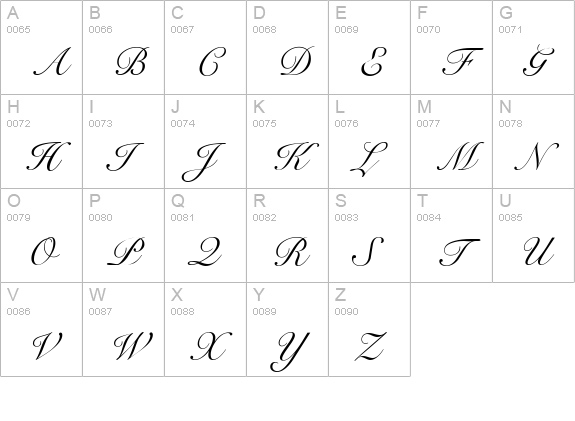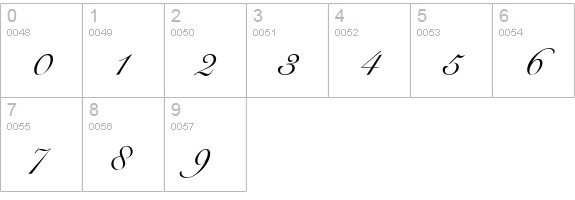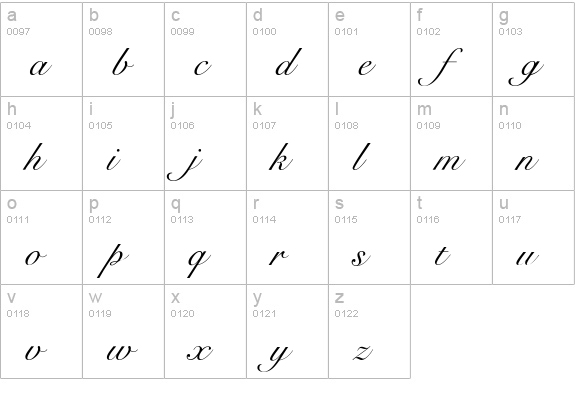
R791-Script-Regular Font Details
R791-Script-Regular is the standard, neutral variant in the R791 typeface family \xE2\x80\x94 well suited to general body text, paragraphs, and standard typographic work.
R791-Script-Regular is a stylish and elegant font that exudes sophistication and charm. With its graceful curves and flowing lines, this font is perfect for adding a touch of class to any design project. Whether you are creating wedding invitations, branding materials, or social media graphics, R791-Script-Regular will elevate your work to the next level. The best part about R791-Script-Regular is that it is completely free to download. You can easily access this beautiful font at FontsMarket.com, where you can explore a wide range of other high-quality fonts as well. Don't miss out on the opportunity to enhance your designs with this stunning script font that is both versatile and eye-catching. Download R791-Script-Regular today and let your creativity shine!